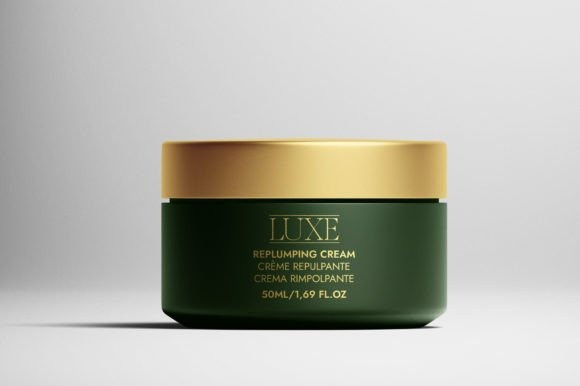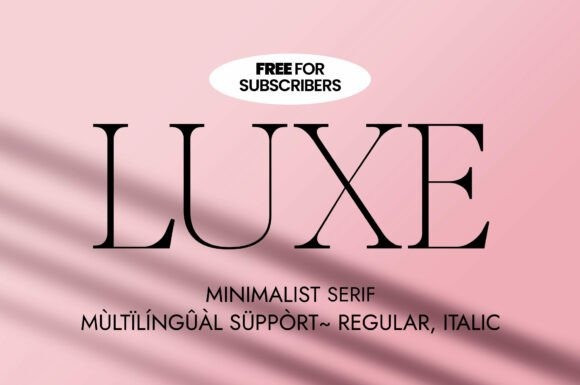
Luxe Font
Luxe Font is an elegant, delicate and chic serif typeface. Its thin aspect in the glyphs construction renders it a vital choice when it comes to designing various things, such as packaging design, fashion design, magazine covers, social posts, etc. Add this font to your favorite creative ideas, and notice how it makes them come alive!